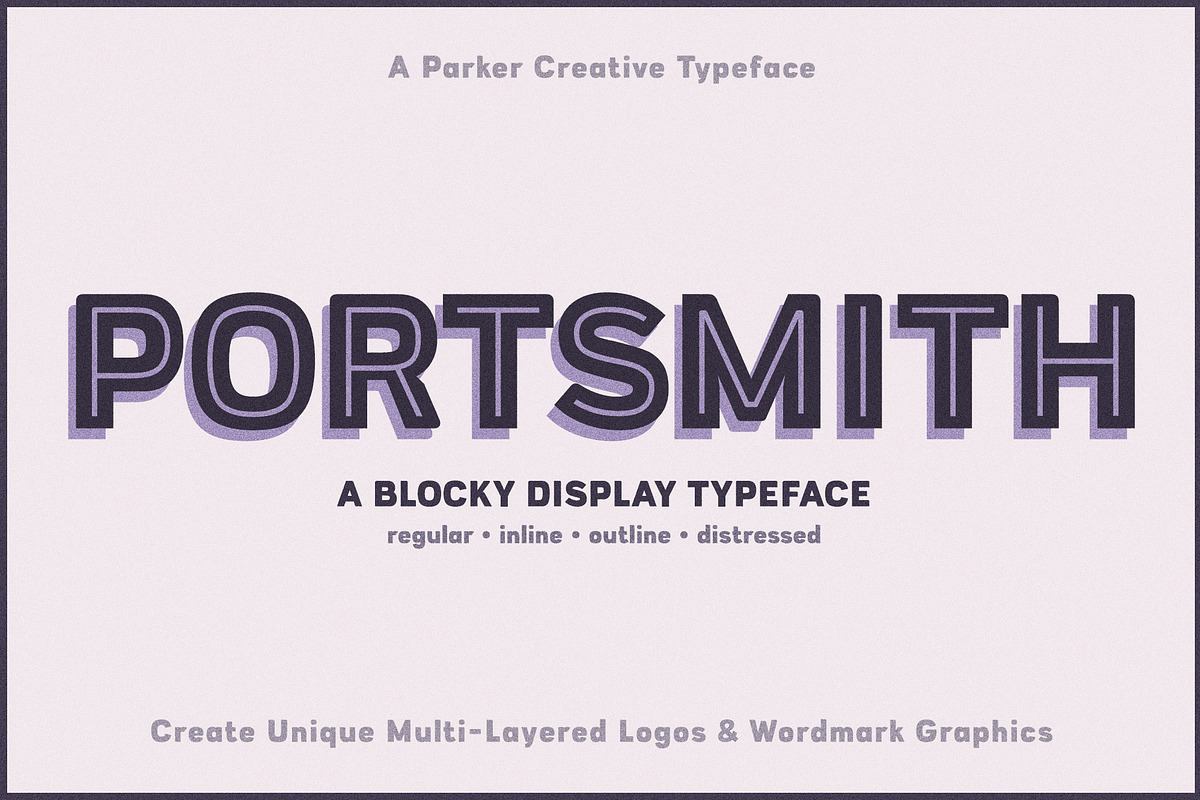
Portsmith Versatile Inline Font Free Download is a stylish and sophisticated typeface designed to make your message stand tall with elegance. Featuring sharp lines, detailed inline accents, and a timeless structure, this font is ideal for logos, packaging, editorial headlines, and luxury branding.
The strength of Portsmith Versatile Inline Font Free Download lies in its adaptability—it brings character and clarity to vintage-inspired projects while staying modern enough for cutting-edge design work. Whether you're crafting classic labels, fashion brand materials, or custom prints, Portsmith adds a refined visual rhythm to your layout.
Its inline detail gives depth and dimension, making every letter feel thoughtfully sculpted. Bold, beautiful, and built to impress, this font helps your designs strike the perfect balance between tradition and trend.
Portsmith isn’t just versatile—it’s unforgettable. Let your typography do the talking, and make it speak with confidence and class.